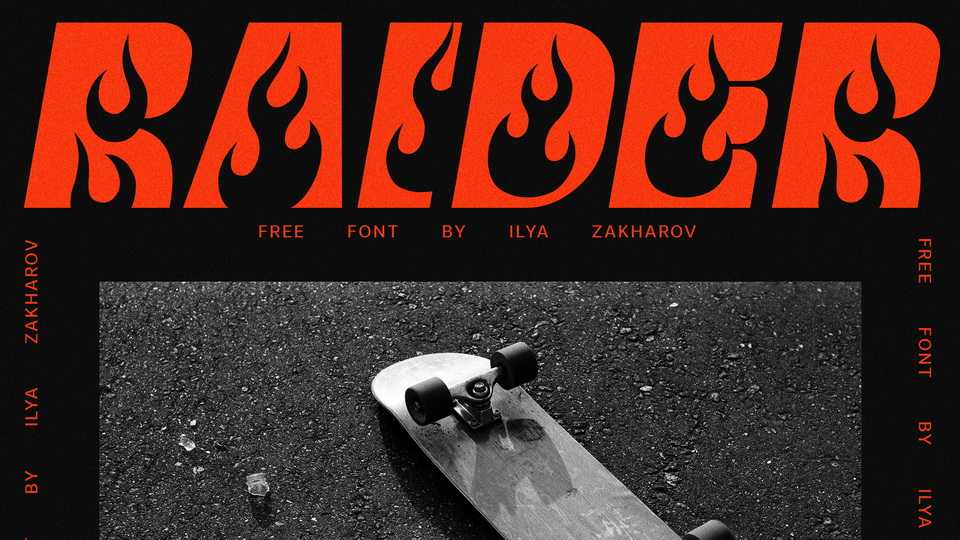
Download Raider font, a bold decorative typeface inspired by fire flames. Raider is perfect for posters, logos, headlines and any underground projects.
Designer: Ilya Zakharov